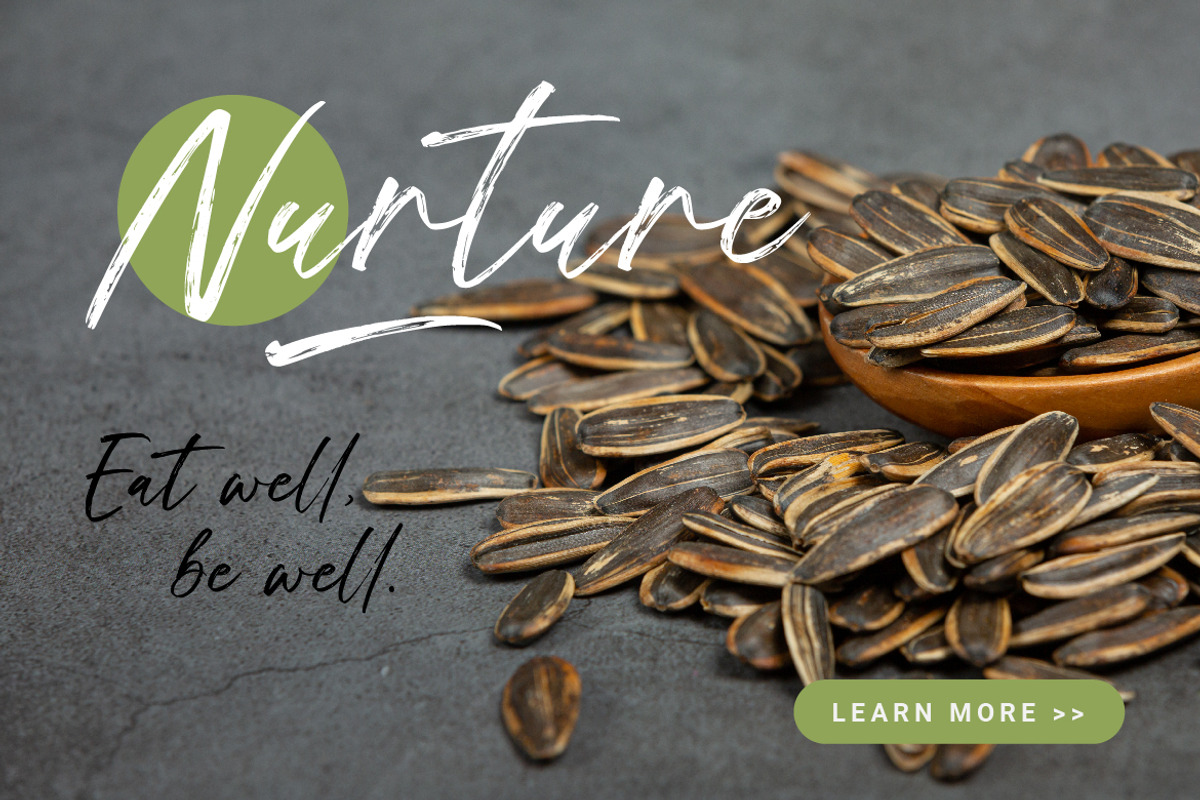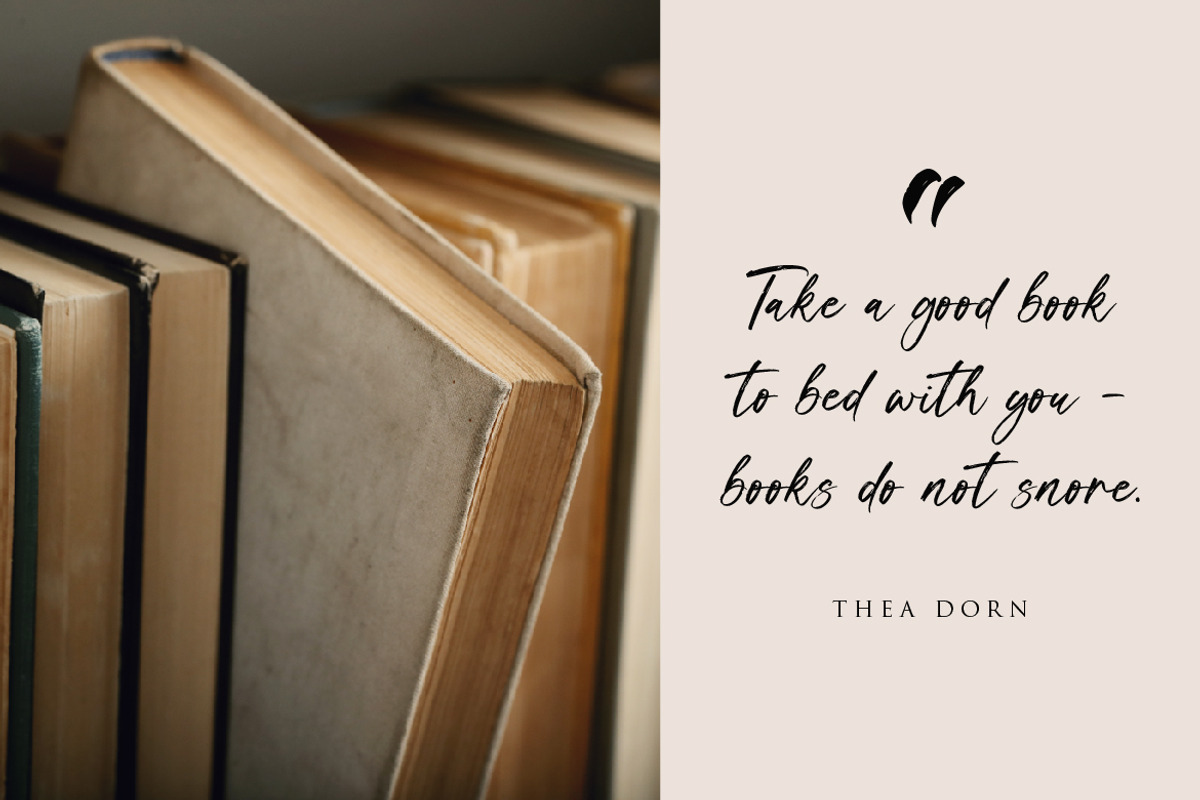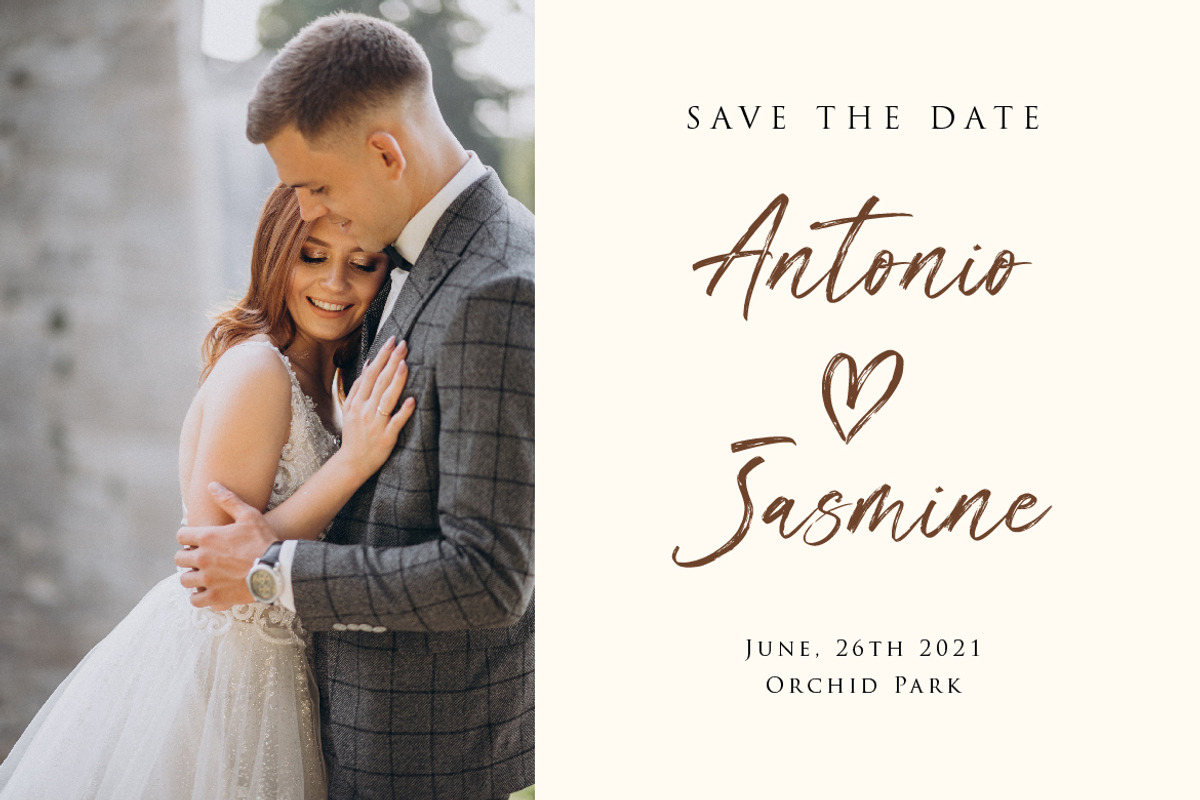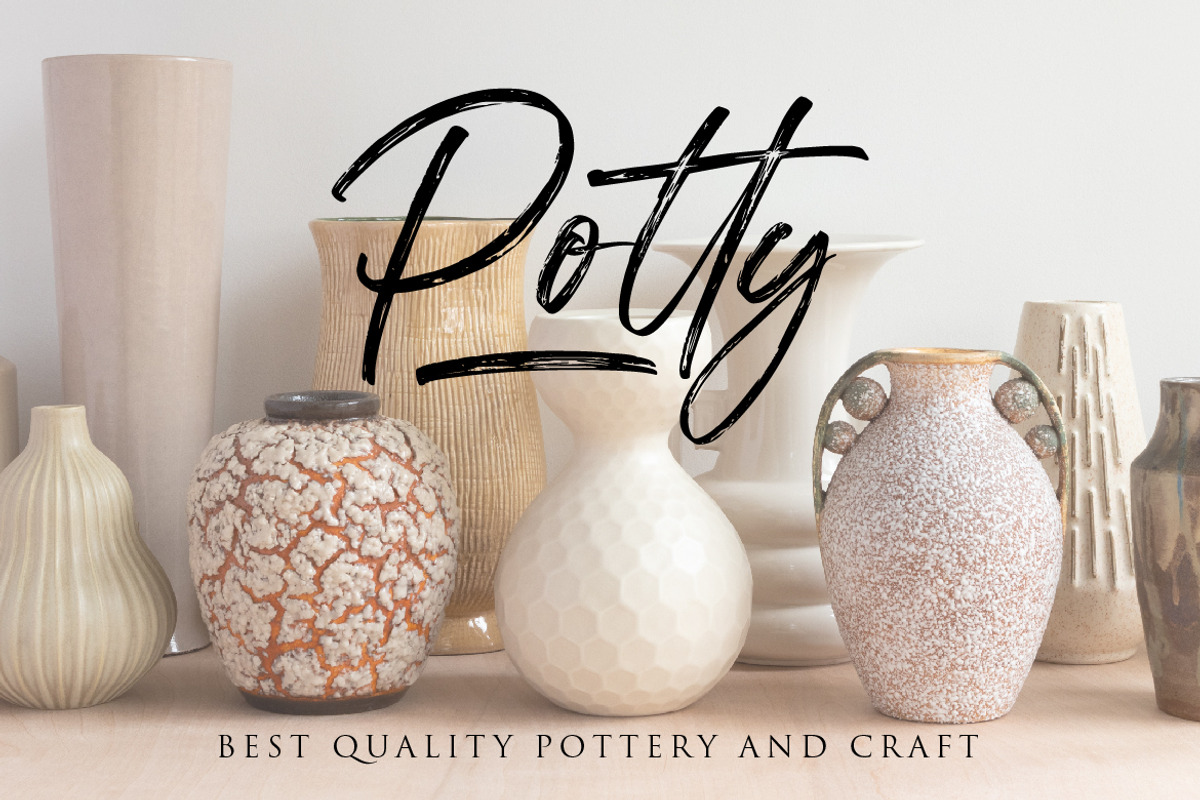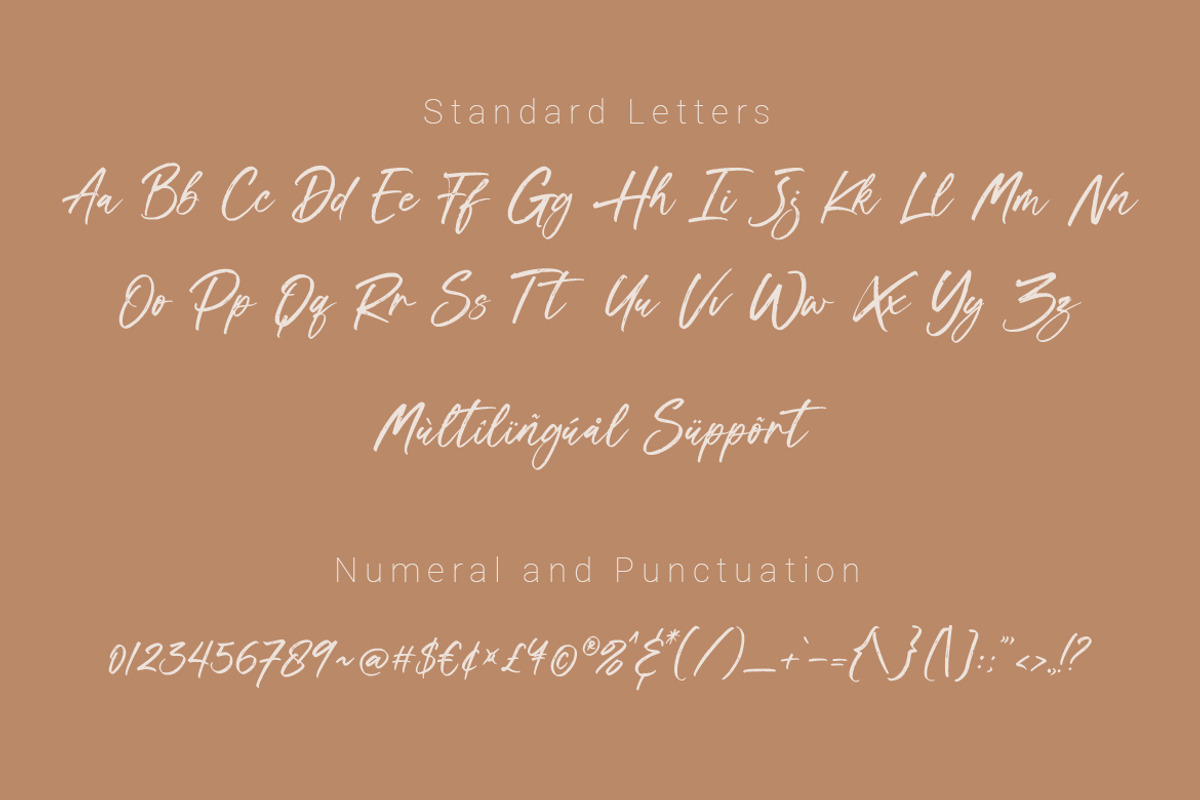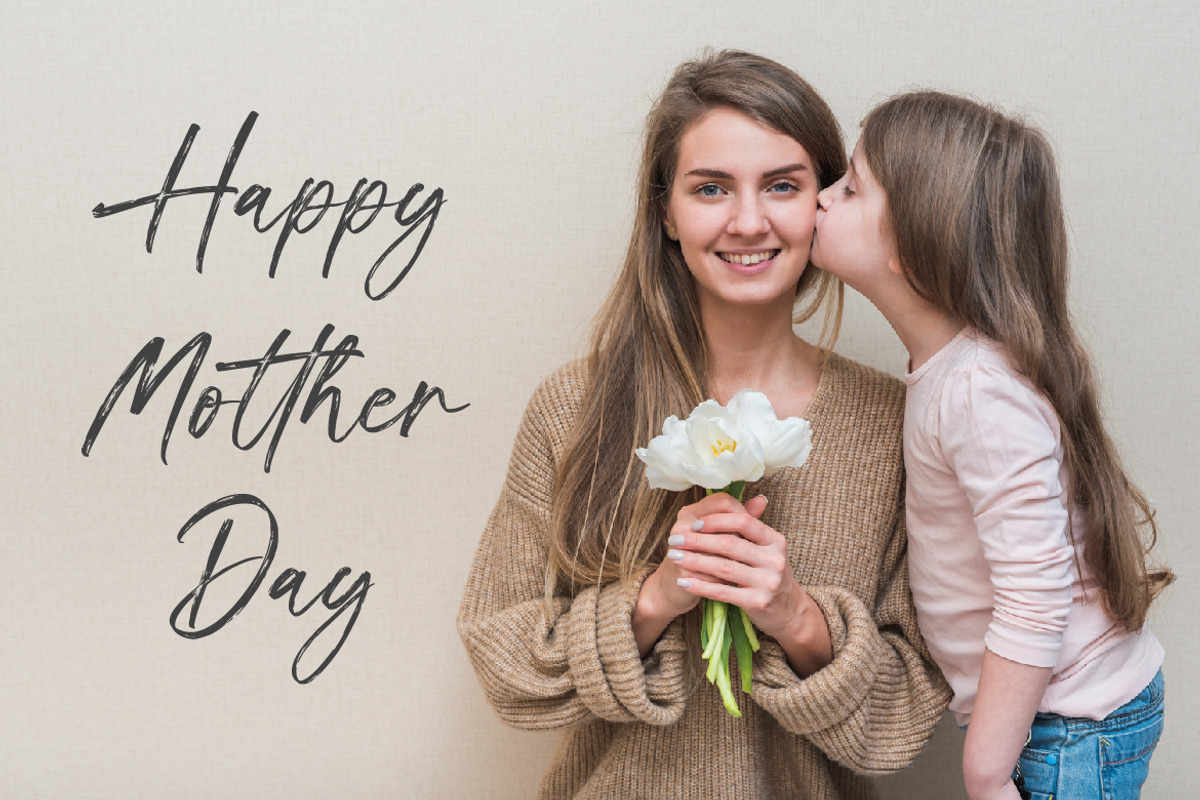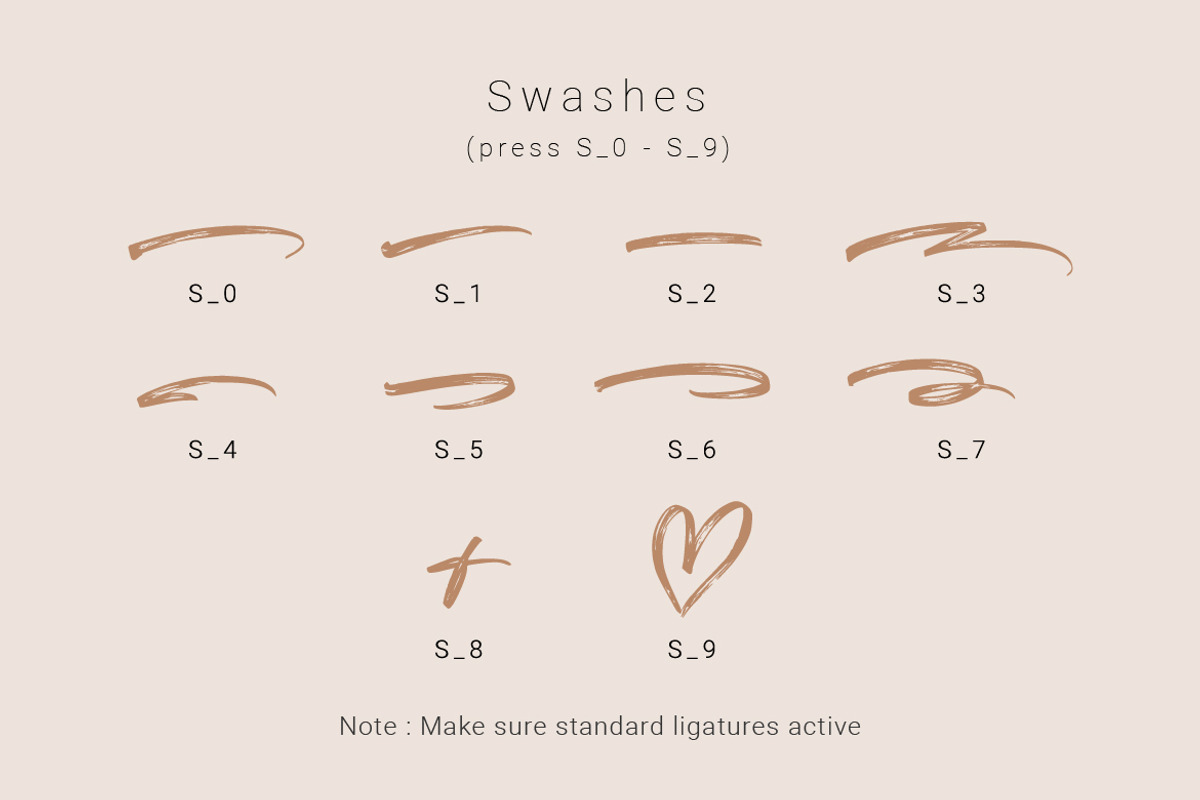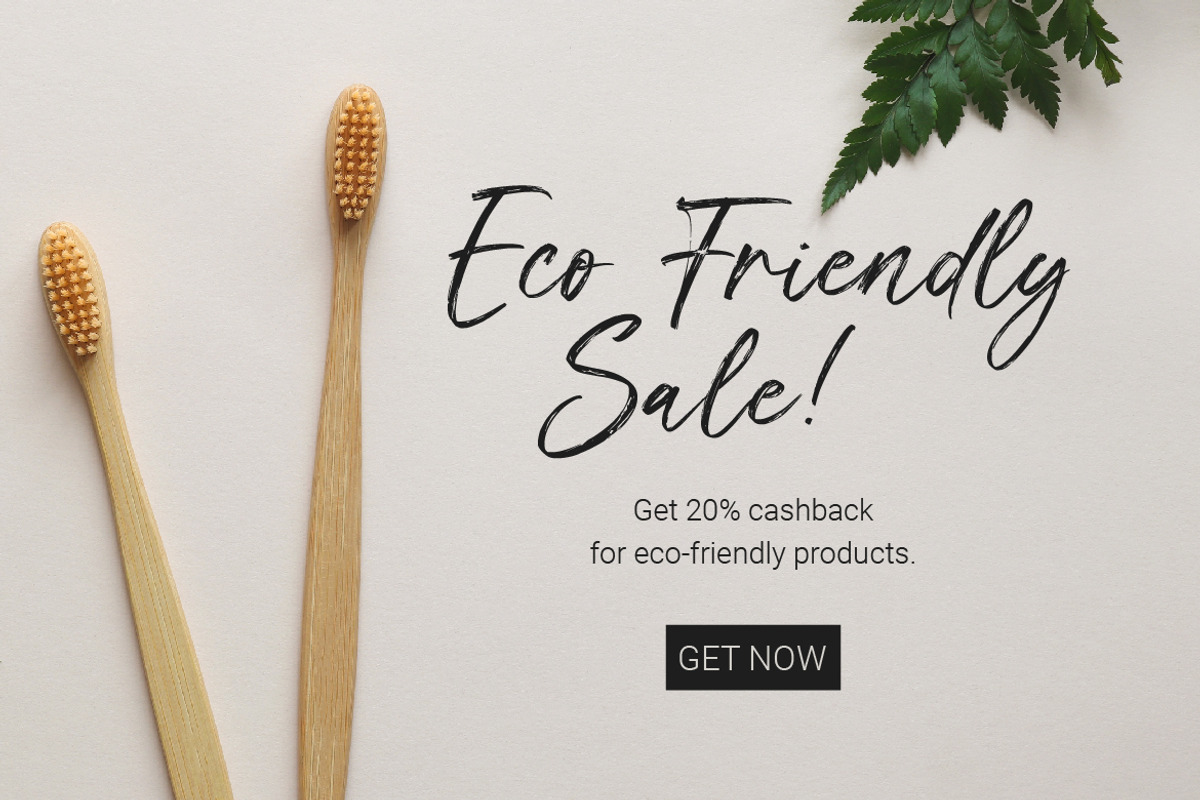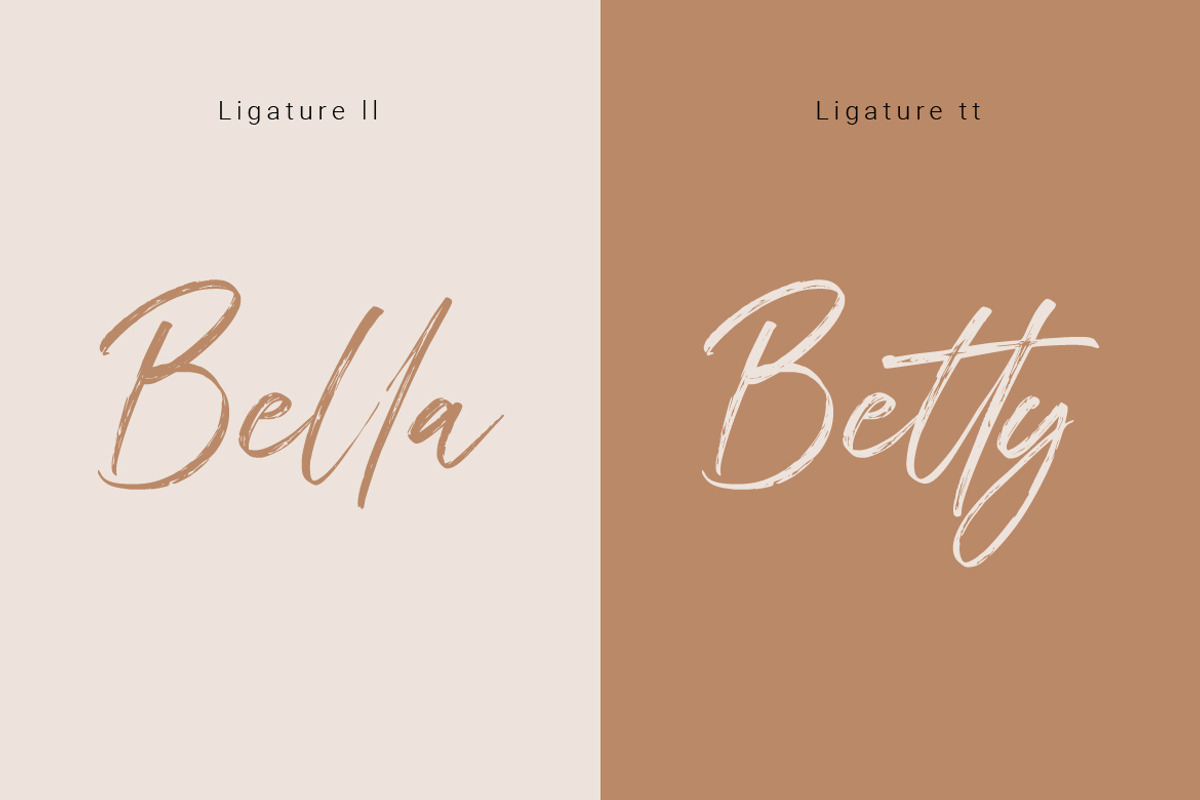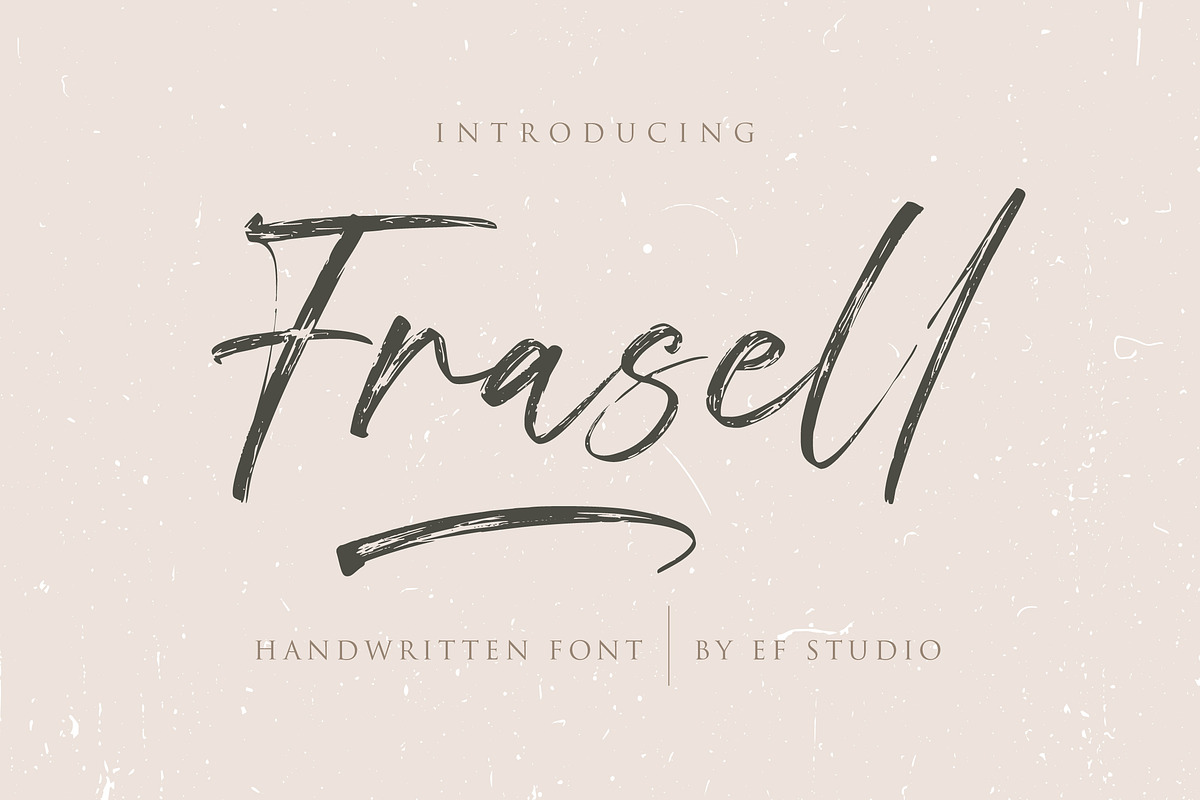
Frasell - Handwritten Font
Frasell is a brush handwritten font that suitable for branding, invitation, packaging, merchandise, website, advertisement, magazine, logo, and more. You will get full set of lowercase and uppercase letters, numerals and punctuation, multilingual symbols, ligatures and extra swashes.